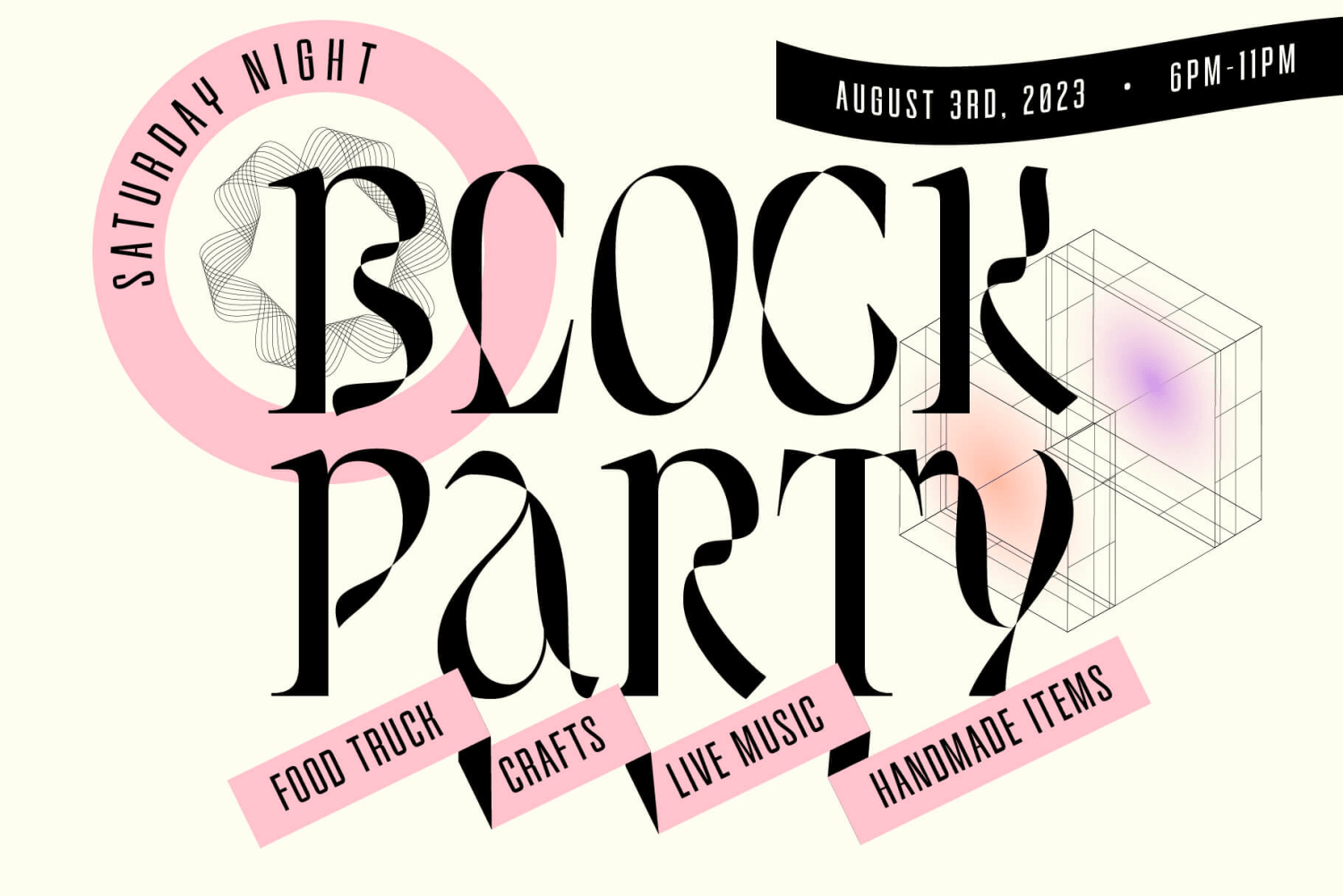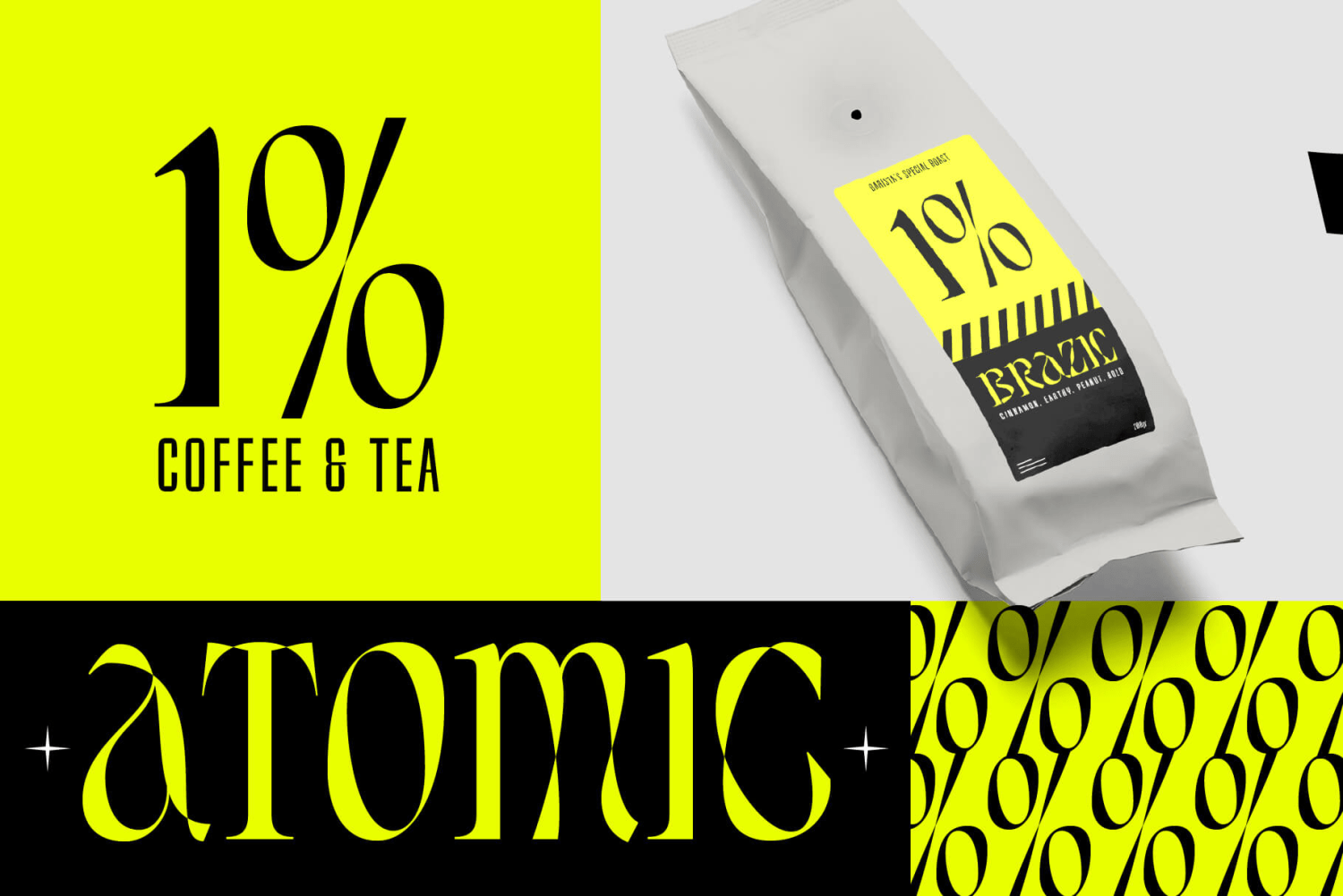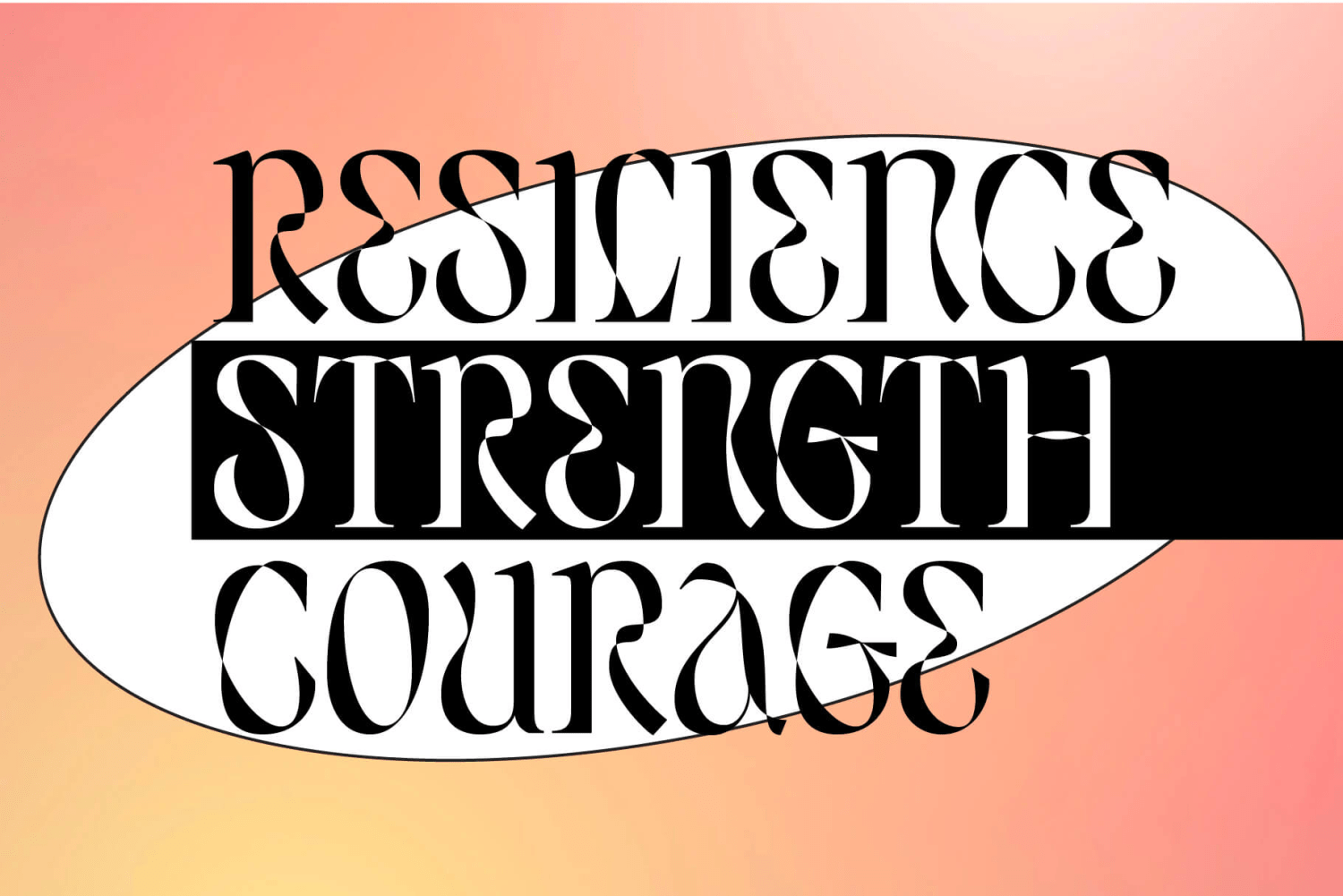
About Buglers
Introducing "Buglers" – an avant-garde font that pushes the boundaries of experimental typography. With its captivating style characterized by extreme path collisions, this sans-serif typeface delivers a mesmerizing and unconventional visual…